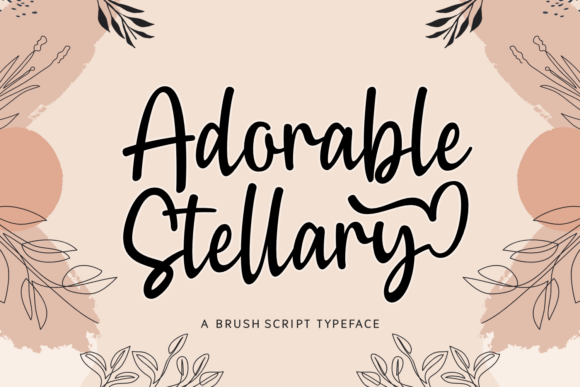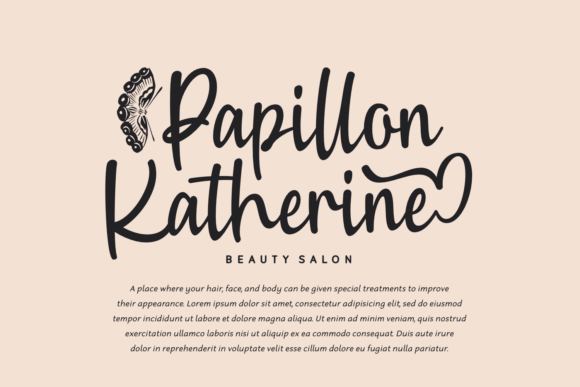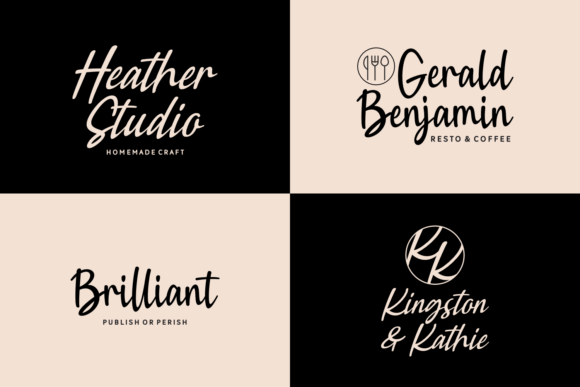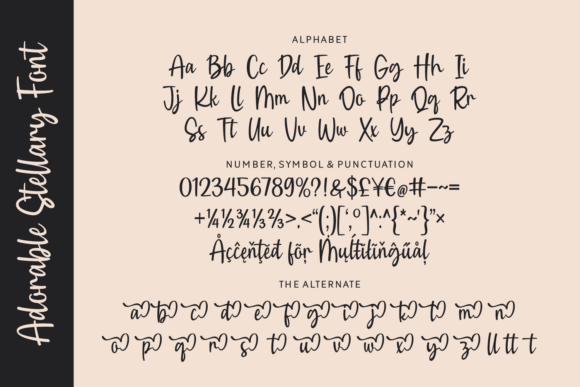
Adorable Stellary Font
About the Adorable Stellary Font
The Adorable Stellary Font is here to transform your projects with its distinctive character and style. The “Adorable Stellary” font is a delightful typeface characterized by its warm, playful, and feminine aesthetic. Its design evokes a handwritten feel, reminiscent of brush script, enhanced by heart-shaped swashes. This combination creates a whimsical, approachable, and friendly impression, making it ideal for designs that aim to be inviting and personal.
This versatile font lends itself to a wide range of creative projects, including greeting cards, invitations, branding for feminine-focused businesses, social media graphics, and inspirational quotes. Its cheerful and elegant nature also makes it suitable for children’s books and educational materials. Furthermore, it offers multilingual support with accented characters and features variable stroke widths for an authentic handwritten look. The incorporation of heart-shaped swashes further emphasizes its adorable and loving theme.
Adorable Stellary Font Usage Examples
Adorable Stellary Font Example